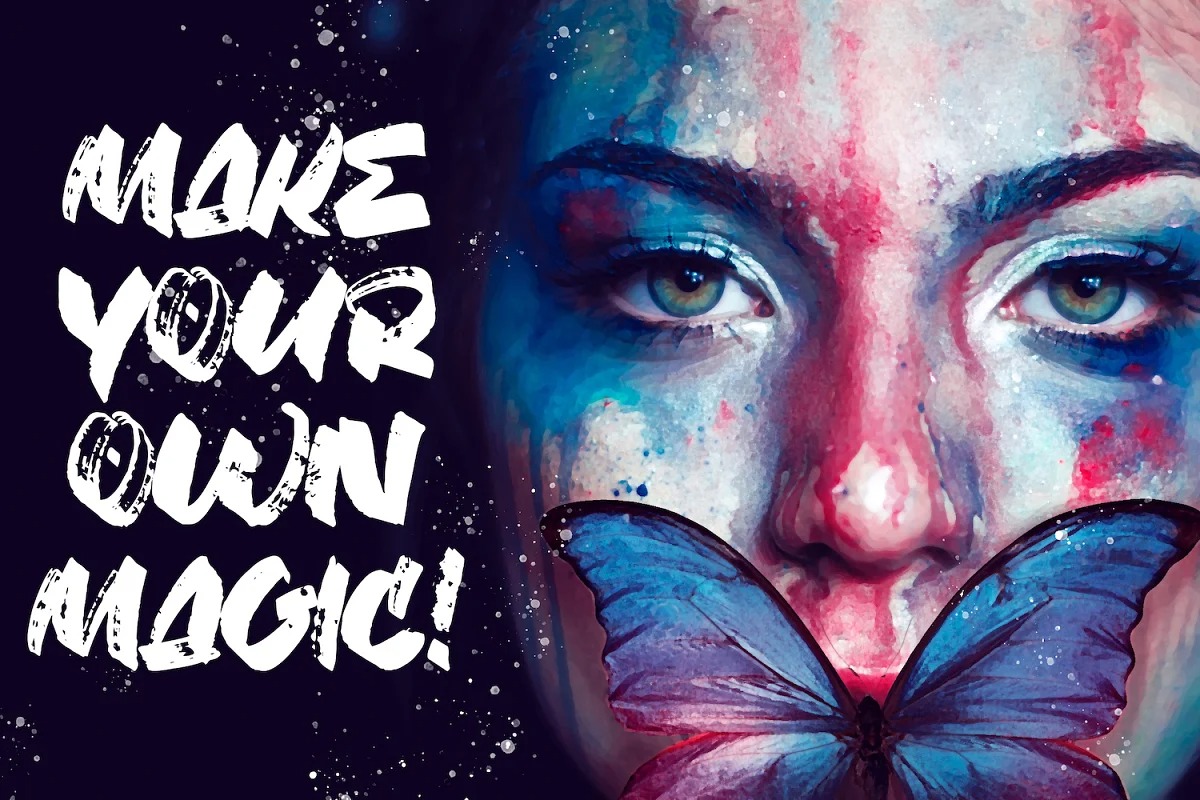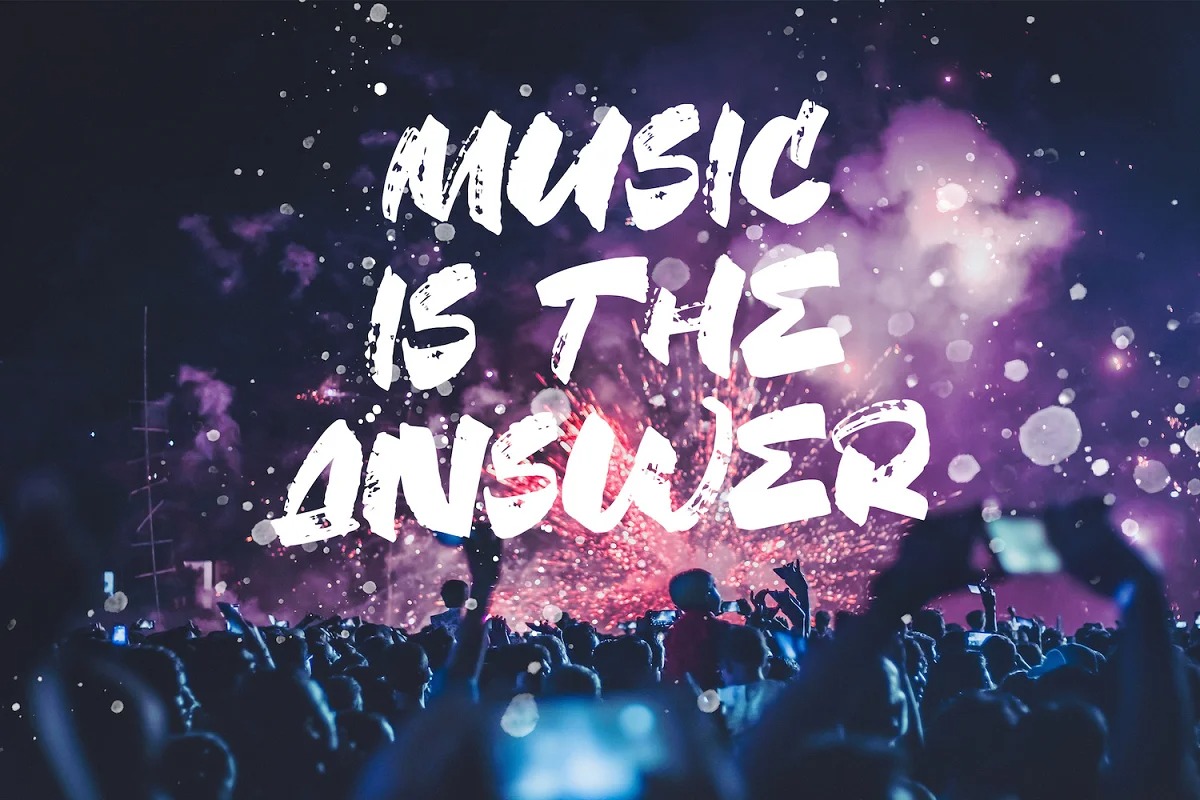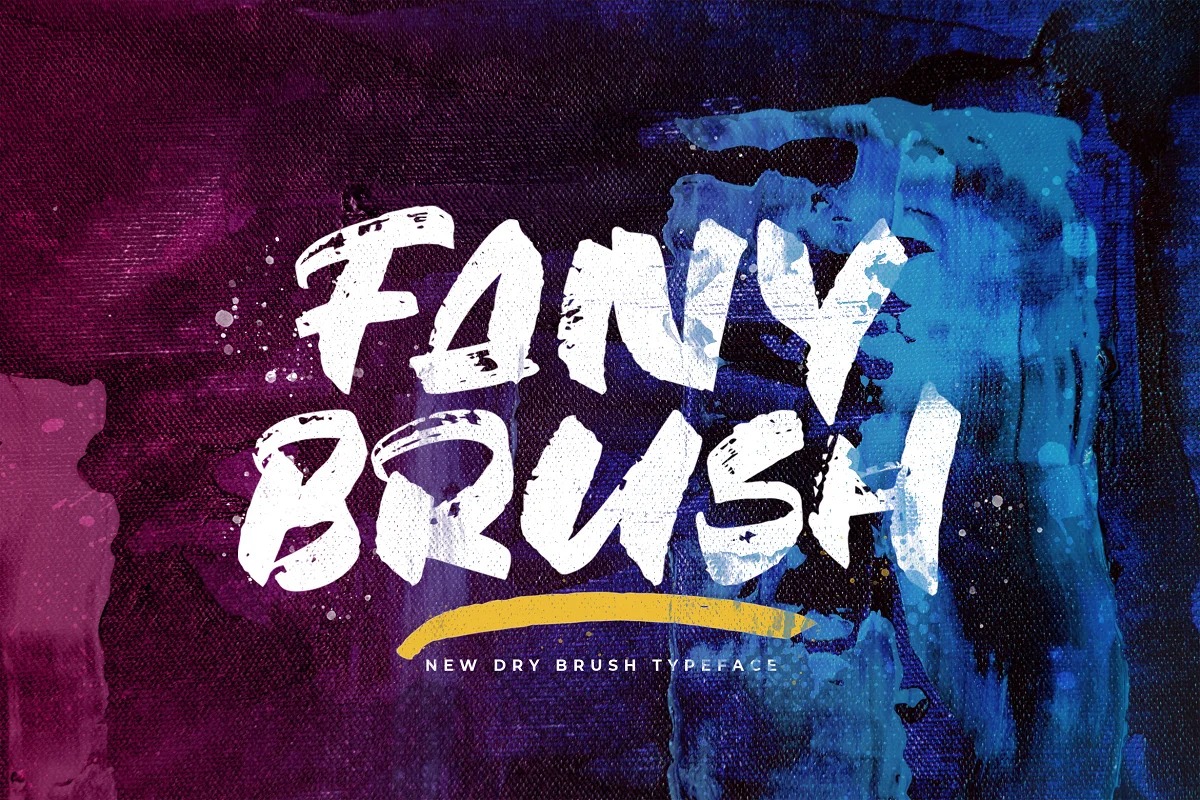
Fany Brush Font
This is a handwritten brush font created by StringLabs with a Rough style and dramatic movement. This font is great for your next creative project such as logos, printed quotes, invitations, cards, product packaging, headers, Logotype, Letterhead, Poster, Label, and etc.